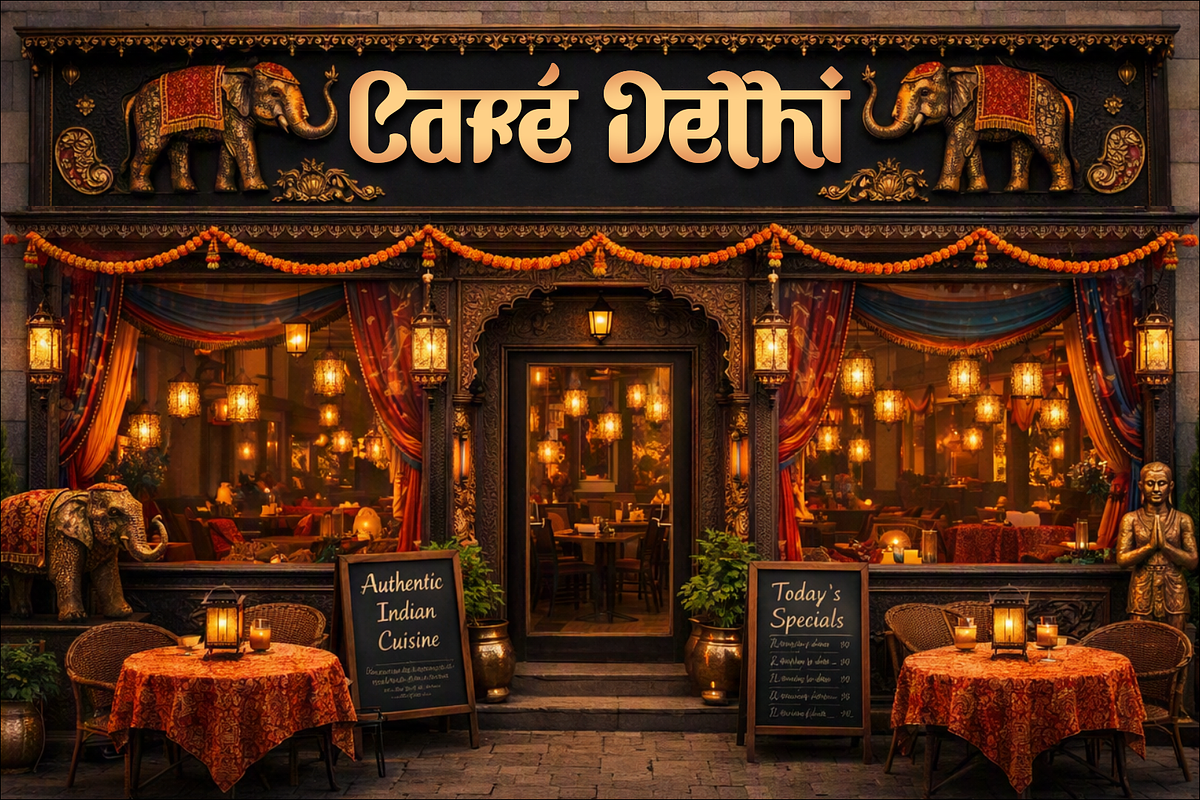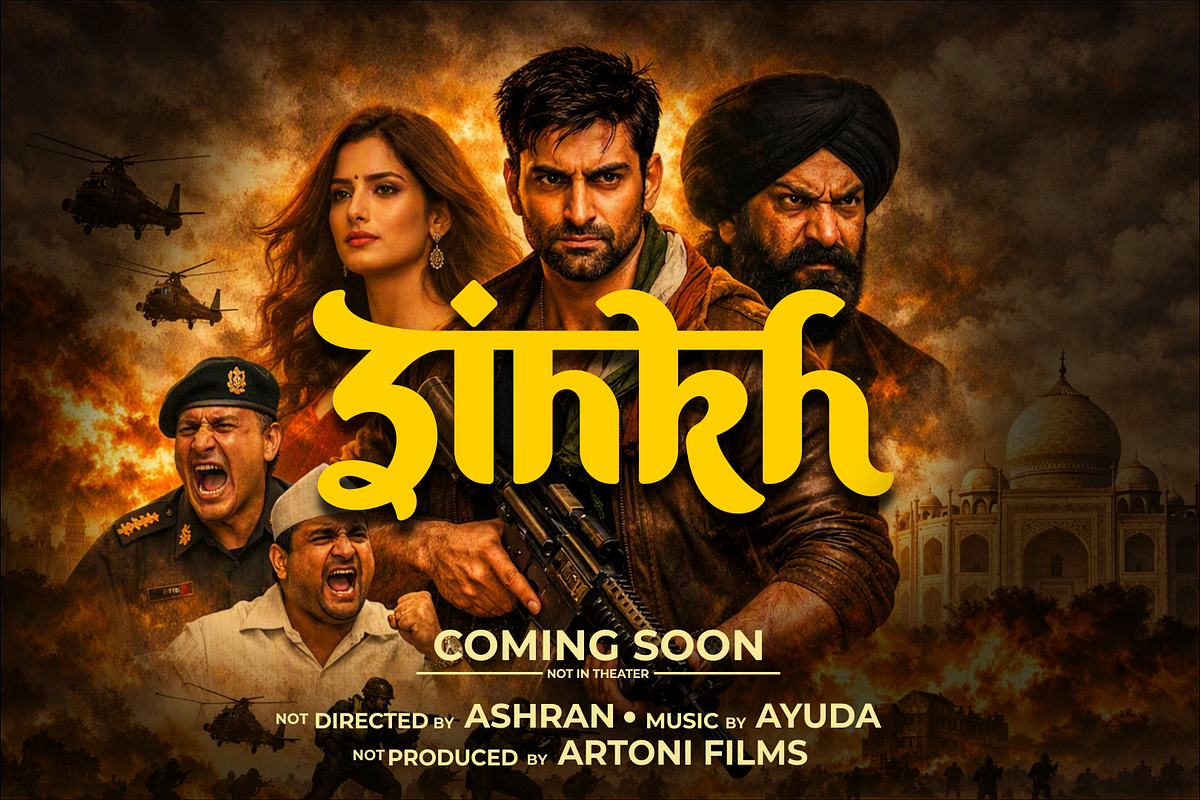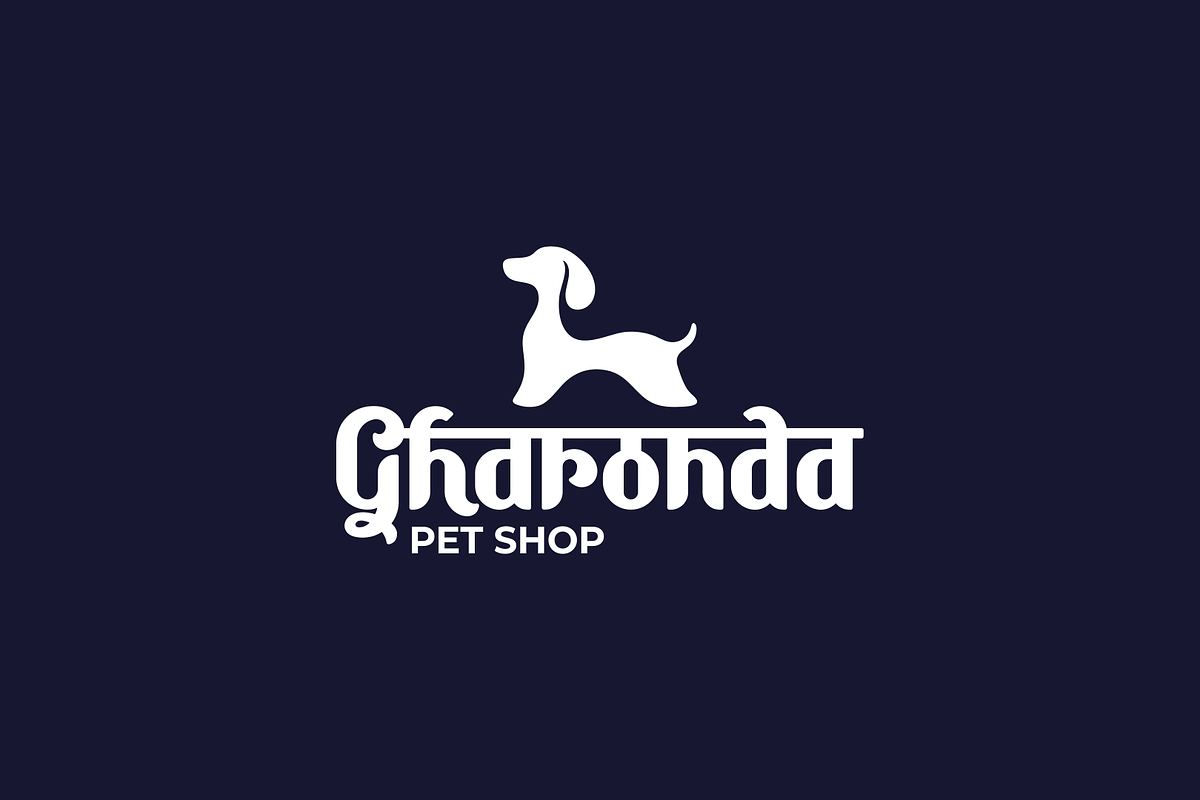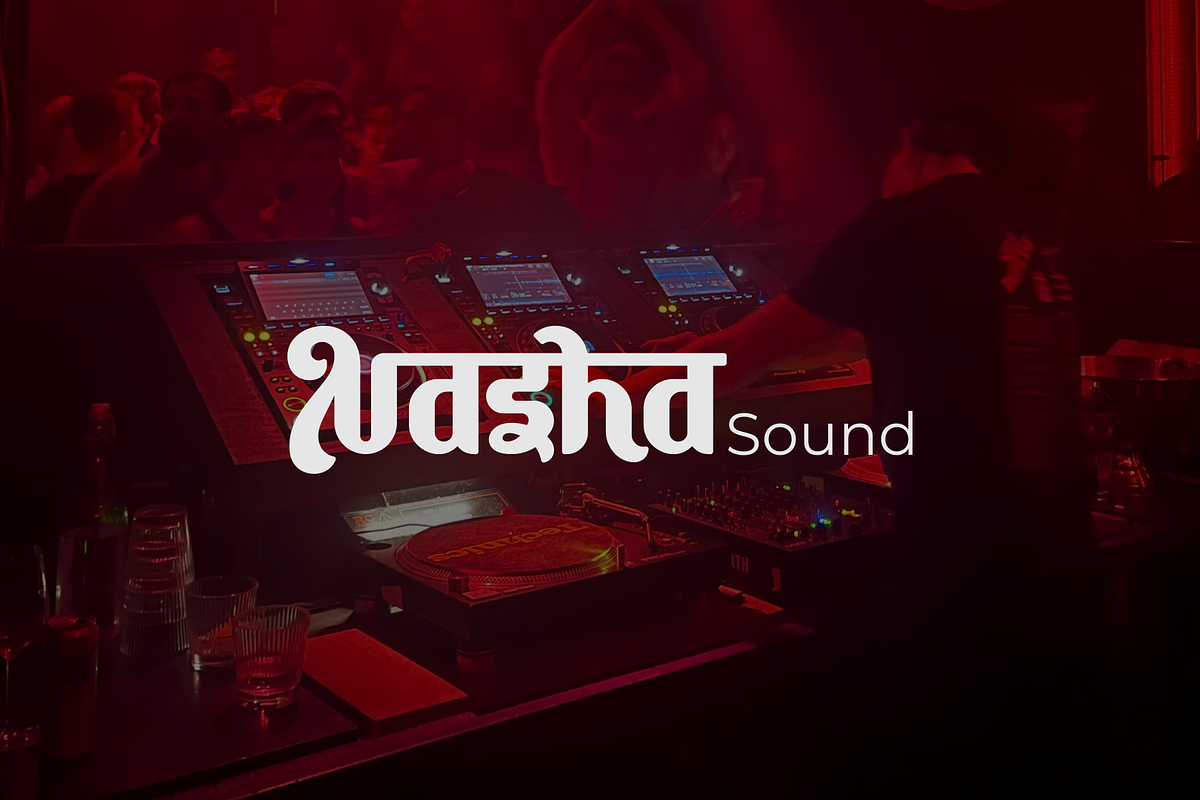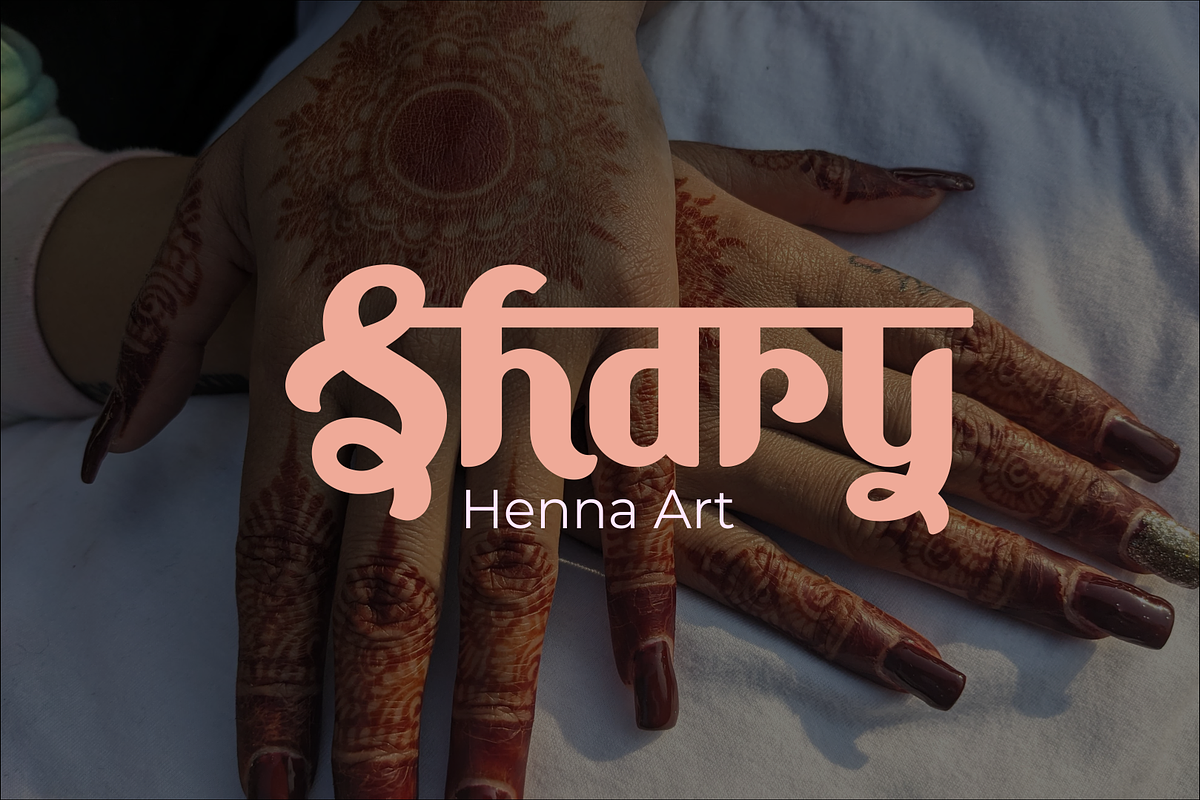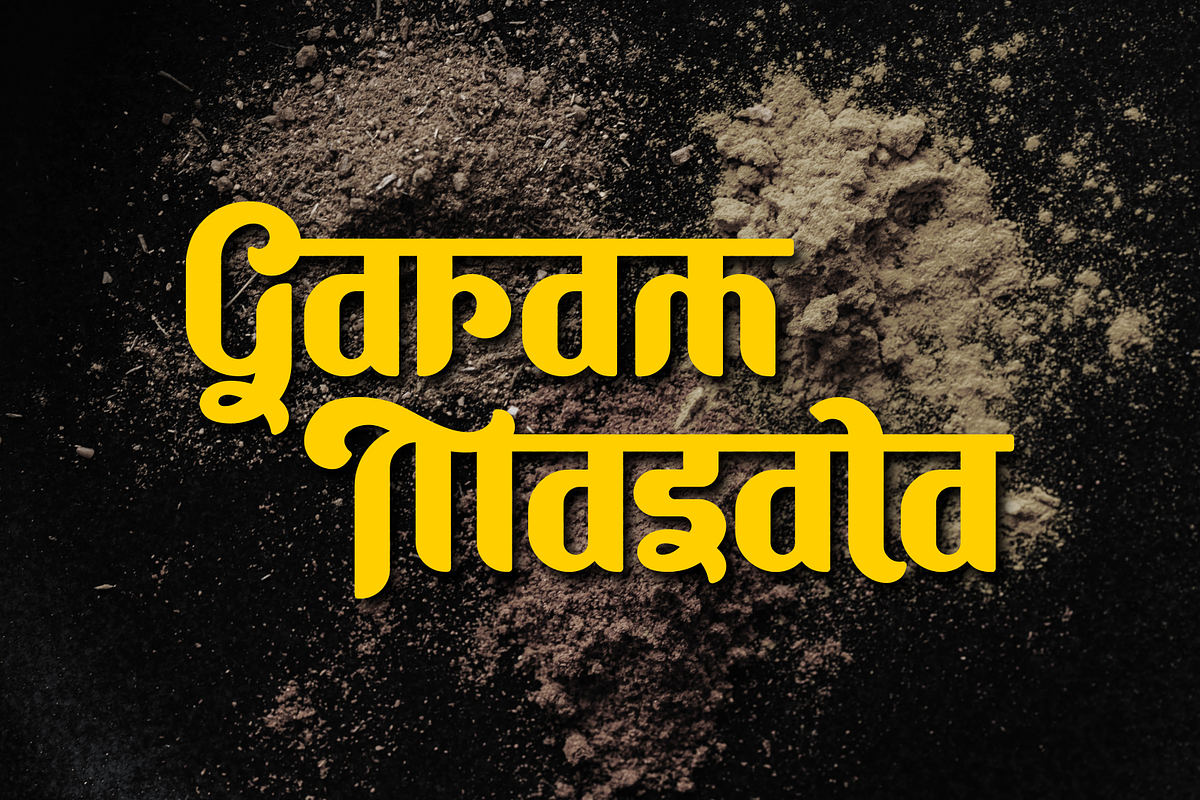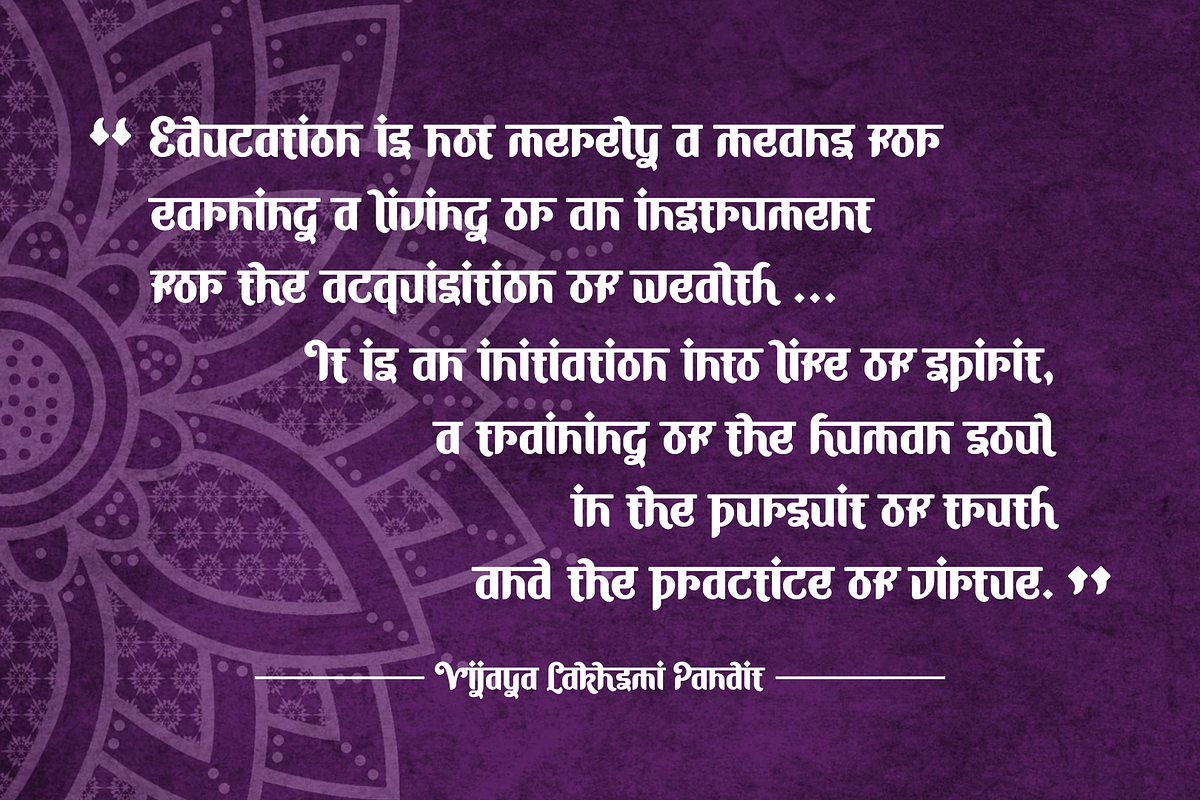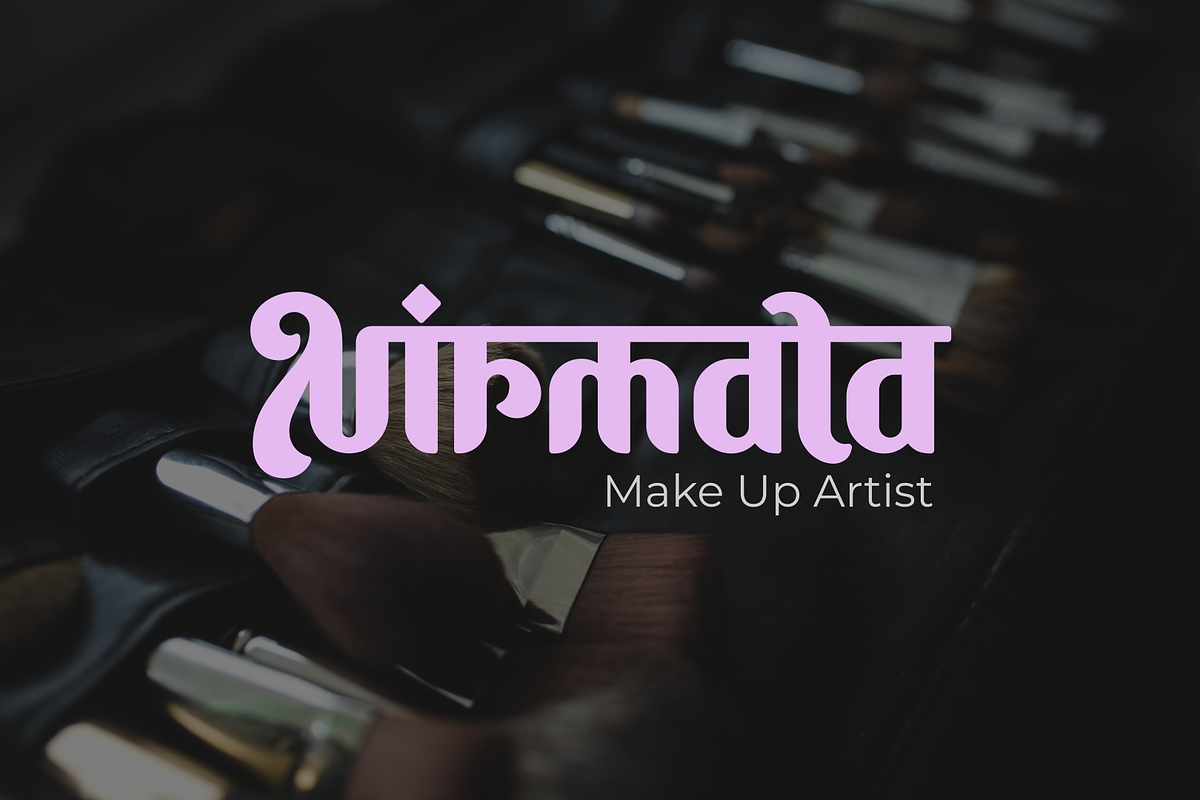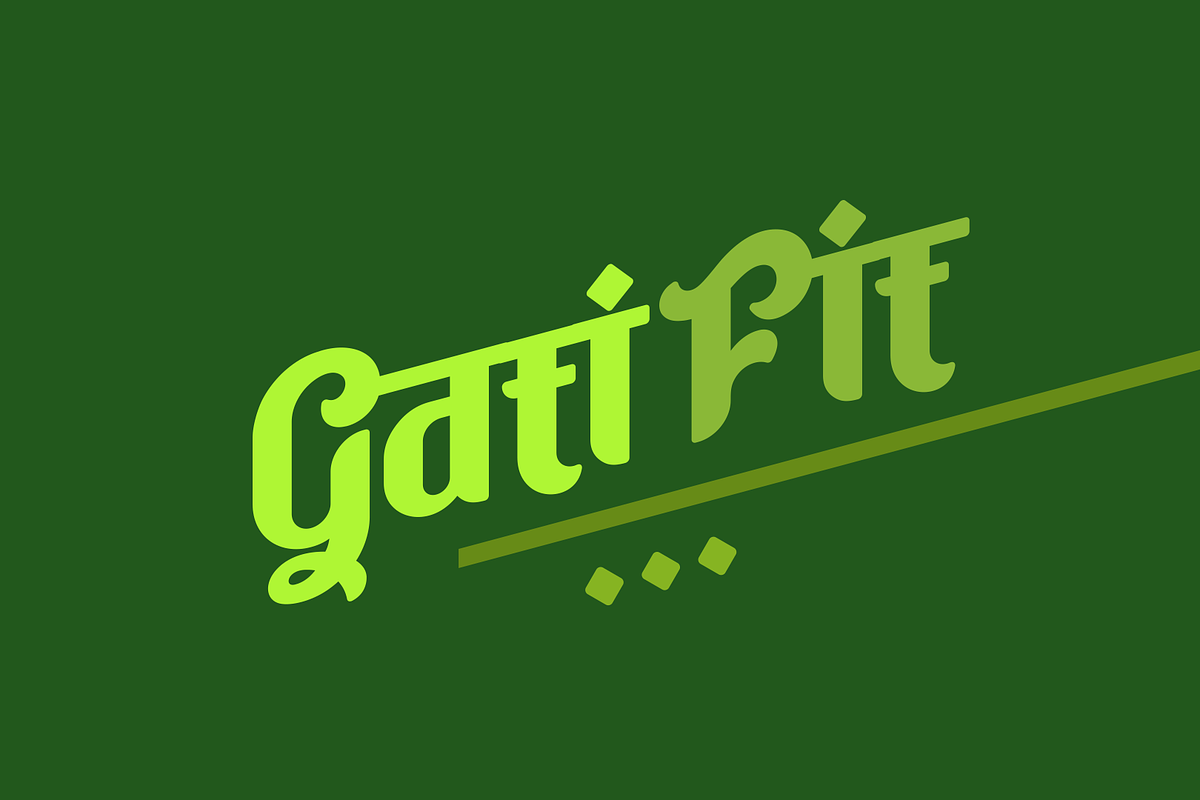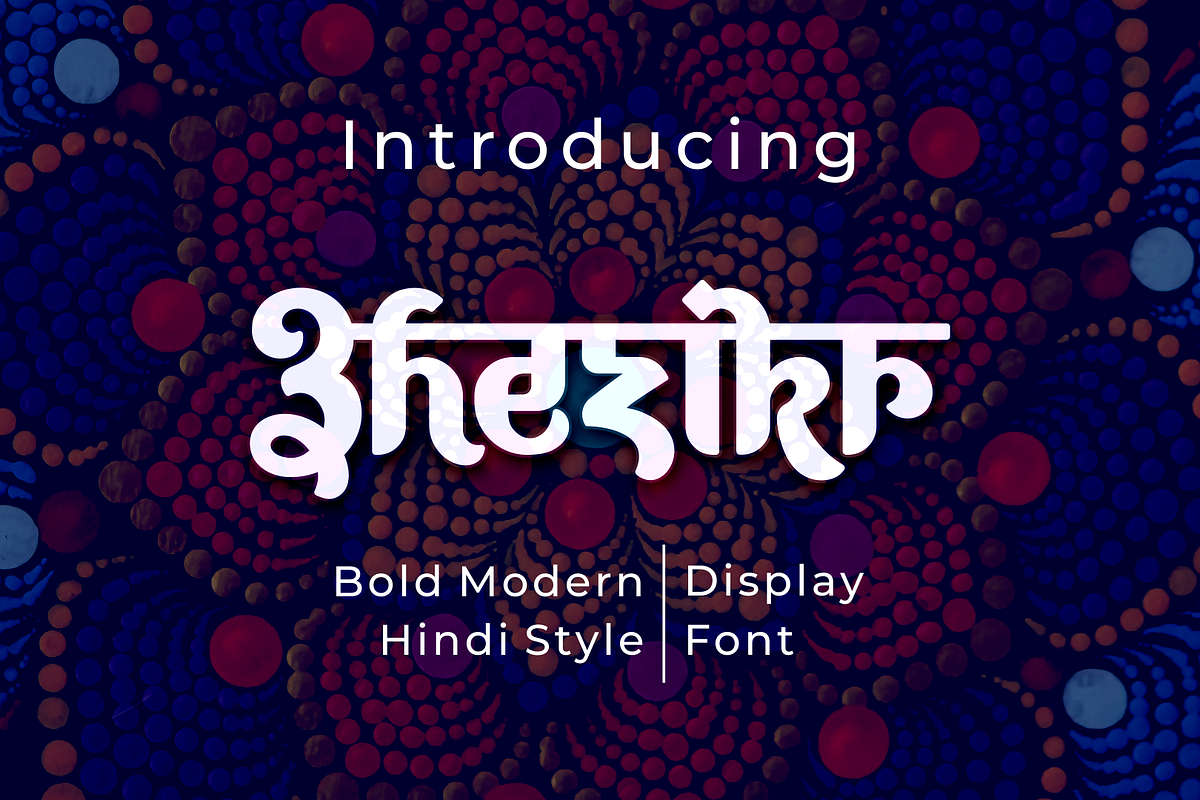
Bhezikr
Bhezikr is a bold display typeface inspired by the aesthetics of Devanagari and the vibrant energy of Indian cinema, reimagined through the Latin alphabet. With its heavy strokes, dramatic curves, and theatrical presence, Bhezikr transforms text into a visual performance.
Multilingual support (Latin Extended + European characters)
Contextual alternates, initials and final forms for dynamic typography
Perfect for posters, creative branding, avant-garde editorials, and cross-cultural projects
Best Use Cases: Bhezikr shines in art posters, film titles, cultural festival branding, zines, fashion campaigns, and digital hero banners. It is a font for fearless designers who want to break conventions and celebrate uniqueness.